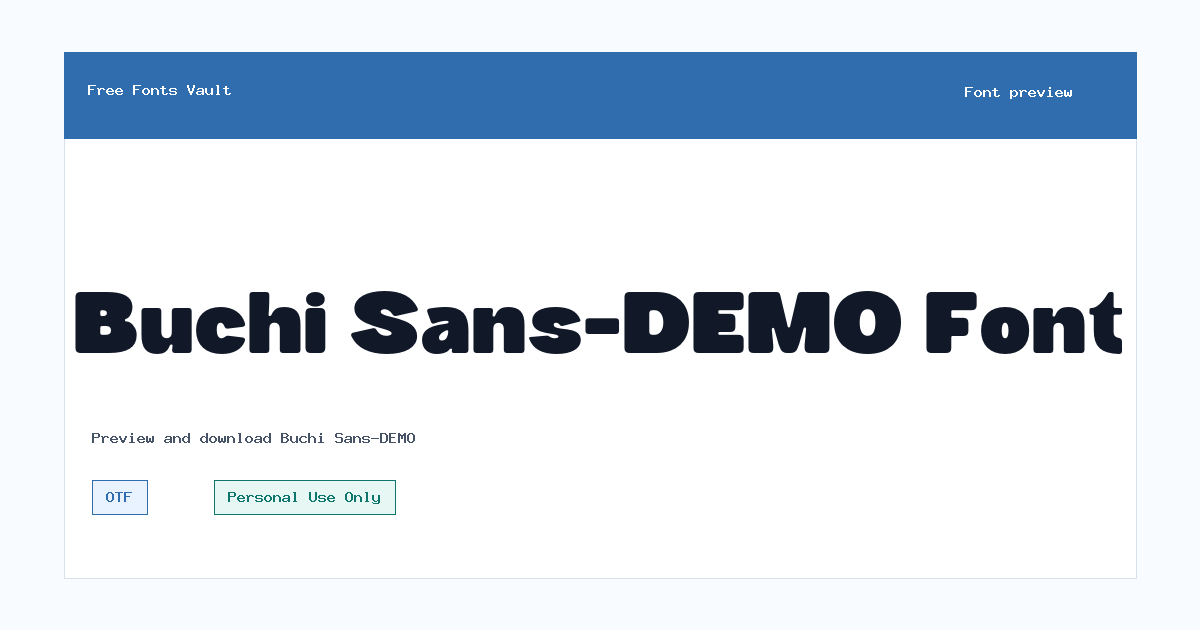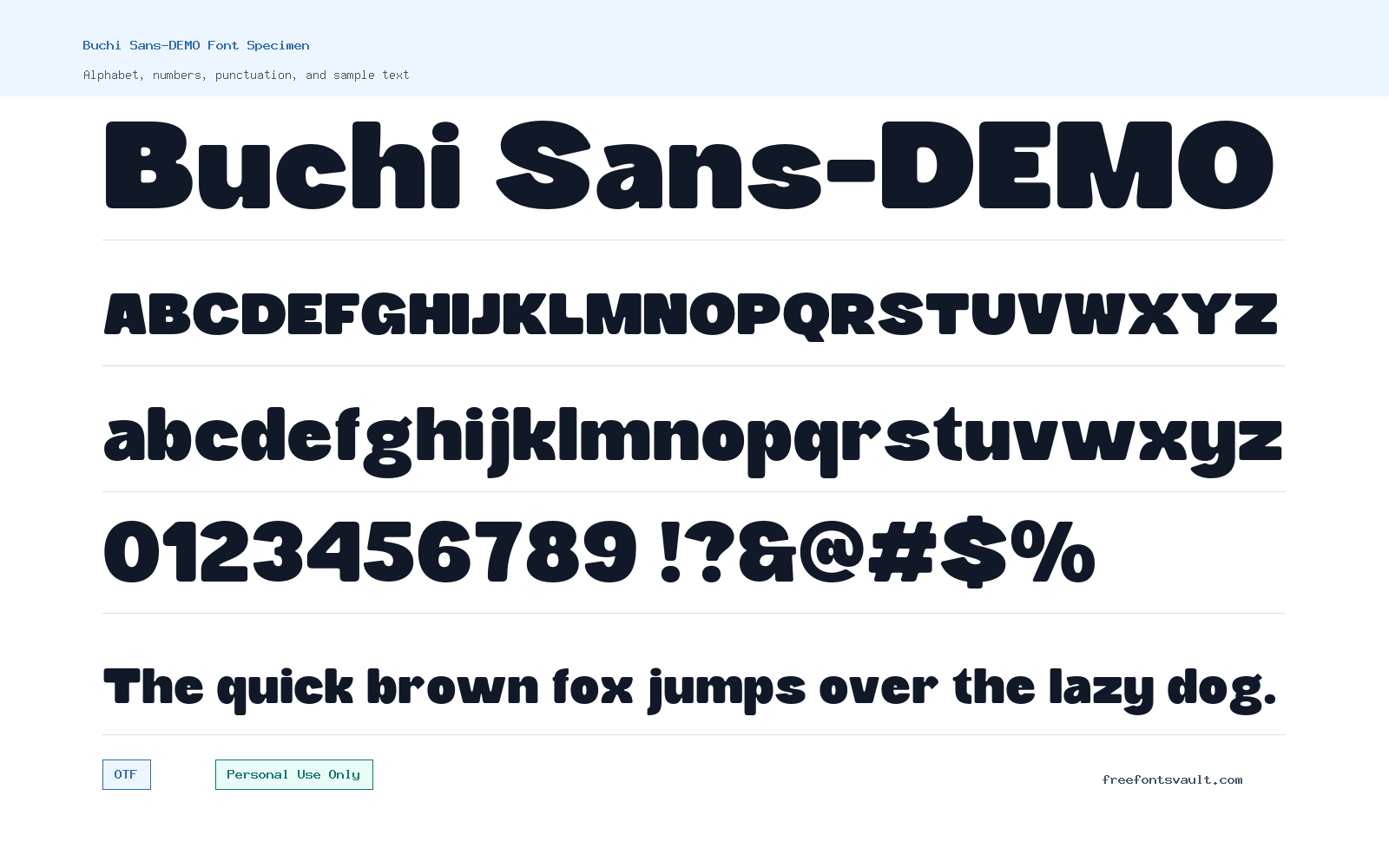
Buchi Sans-DEMO
• Designer Bakhrudin Ja'far
Buchi Sans-DEMO is a regular-weight OTF font for visitors who want to test a clean sans-style display face before using it in personal design work. It is marked Personal Use Only, so treat it as a trial or non-commercial option unless you confirm a separate commercial license.
About Buchi Sans-DEMO
Buchi Sans-DEMO is listed as a single regular style with normal styling and a 400 weight. That makes it straightforward to preview: type a headline, a short brand name, a poster line, or a few words of interface copy and check how the spacing, letter shapes, and overall rhythm feel at different sizes. Because only one style is included, it is best approached as a focused design choice rather than a full text family with bold, italic, or multiple weights. If you need a complete identity system, test whether the regular style can handle your main display use and pair it with another family for body text, captions, and UI details.
Use Buchi Sans-DEMO where a simple sans look can carry short, clear wording. It can be tested for personal logo concepts, poster titles, social graphics, web mockup headings, packaging drafts, and presentation covers. For longer paragraphs, menus, or small mobile text, preview carefully before committing. A single regular-weight demo may look good in a large heading but feel limited when a design needs hierarchy, emphasis, or dense reading. Try the font in uppercase, lowercase, numerals, and punctuation, then compare it beside the supporting fonts you plan to use. If the project needs commercial release, client delivery, merchandise, advertising, or a public brand asset, pause and check licensing with the designer or official source first.
• Best suited for short display testing, headings, logo drafts, and personal-use mockups.
• Single-style demo setup, useful for quick previews but limited for full typography systems.
• Personal logo studies and brand-name mockups
• Poster titles and event graphic drafts
• Social media quote cards or announcement designs
• Website hero headings in non-commercial mockups
• Presentation covers, mood boards, and design exploration
• Packaging or label concepts before final font licensing is decided
Start by previewing Buchi Sans-DEMO at the size you actually plan to use. For logo work, test the exact brand name rather than judging from a sample word. For posters and web mockups, compare it with a neutral, readable text font so the heading has room to stand out. Since only a regular style is listed, build contrast through size, spacing, color, and layout instead of relying on bold or italic styles that may not be included. If you need body copy, choose a separate text-friendly sans or serif with strong readability at small sizes. Always keep the Personal Use Only limit in mind before moving a draft into a public or commercial setting.
What should I pair with Buchi Sans-DEMO?
Pair it with a simple, highly readable text font. A neutral sans can keep a modern layout consistent, while a restrained serif can add contrast in editorial or poster-style designs.
Is Buchi Sans-DEMO good for long paragraphs?
It is better to test it first for short display text. Because only a regular demo style is listed, longer reading settings may need a separate body font with more weights and proven small-size readability.